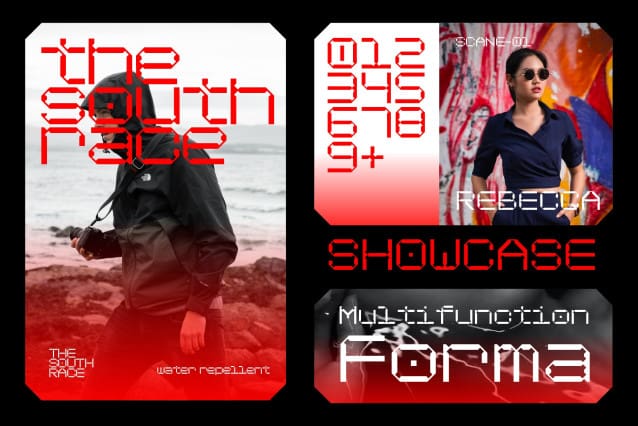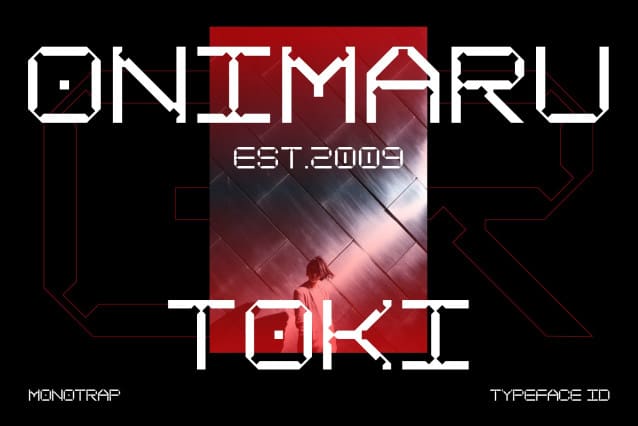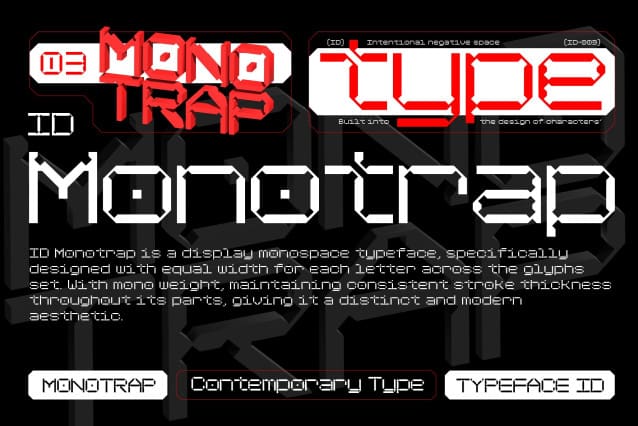
ID Monotrap Font
ID Monotrap Font is a display monospace typeface, specifically designed with equal width for each letter across the glyphs set. With mono weight, maintaining consistent stroke thickness throughout its parts, giving it a distinct and modern aesthetic.